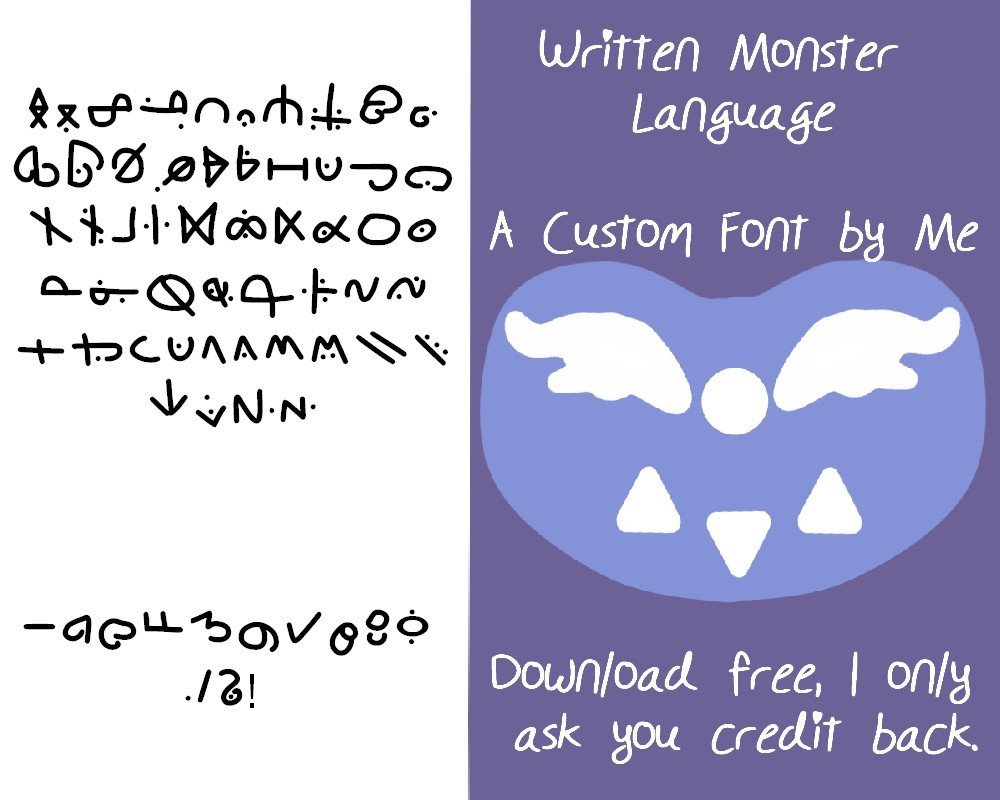
Meh, I just decided to upload it. It's the written language from my GP!Universe for monsters. Same as English for the most part, except in appearance of course.Related content